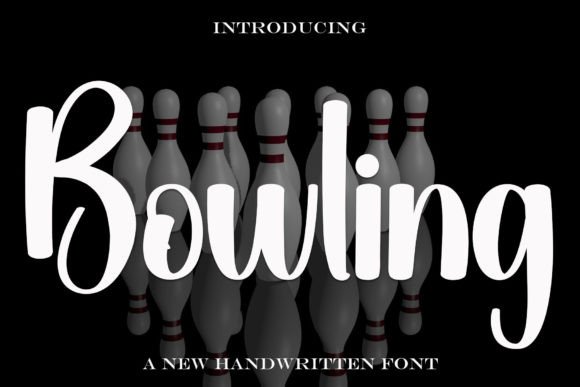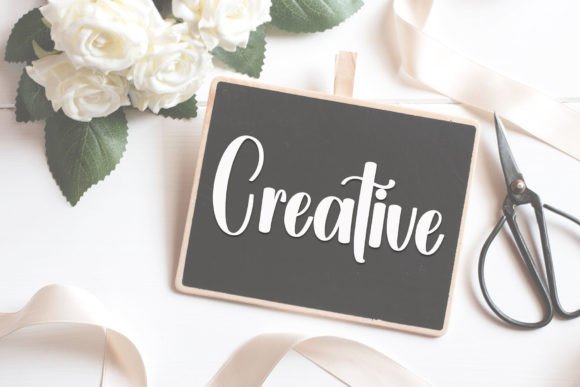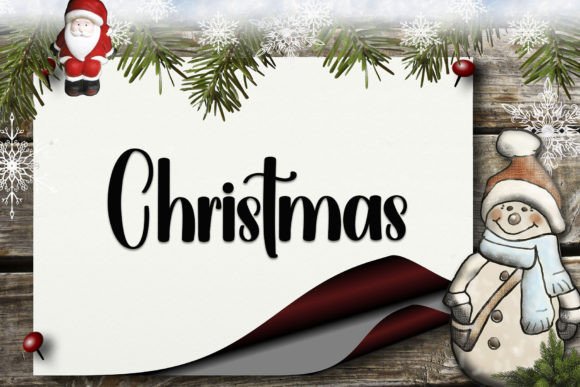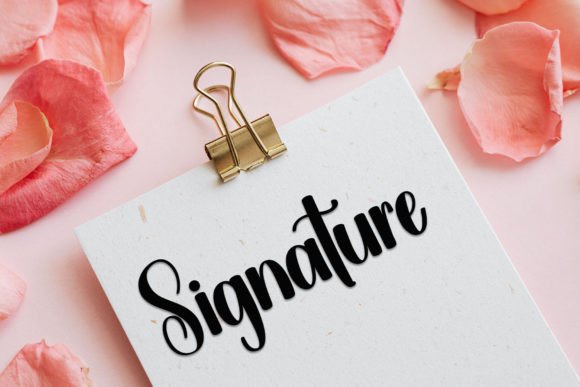
About the Bowling Font
The Bowling Font offers a perfect balance of form and function for your design needs. Bowling is a festive and happy typeface that captures the spirit of the holiday season. With its decorative elements and unique flair, it adds a touch of charm to your designs. Perfect for greeting cards, gift labels, and holiday-themed projects, this font brings a cheerful and nostalgic atmosphere to your words.